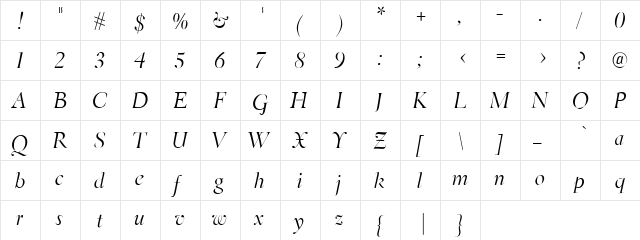
EldoradoLight Regular
Design Context for EldoradoLight Typeface
EldoradoLight offers clean, dependable letterforms without strong stylistic allegiance, making it a practical choice for designers who need flexibility. The delicate stroke weight brings airiness and refinement to layouts.